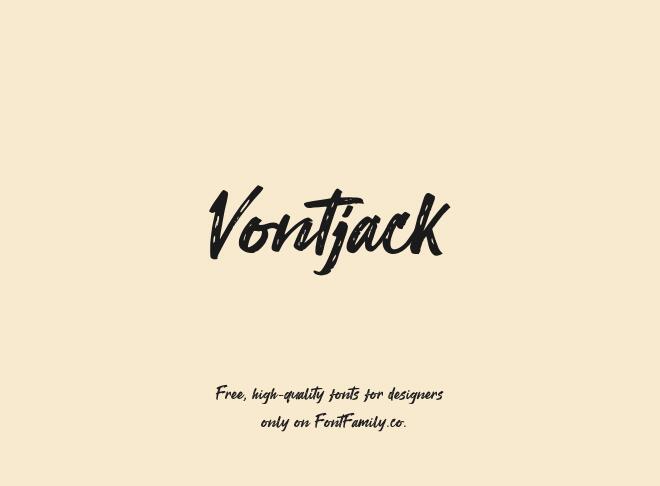
Vontjack Font
The Vontjack Font, a creation of the Vontjack Foundry, is a versatile and unique typeface that stands out in the crowd. With its decorative script style, it brings a distinctive, artistic touch to any design. The font carries an air of creativity and sophistication, making it a perfect choice for branding, logo design, or any project that requires a distinctive and personal touch. Compared to other fonts, Vontjack Font has a unique flair that can add a touch of elegance to your designs. It's particularly suited to projects in the arts, fashion, and lifestyle sectors. Whether you're designing a book cover, a poster, or a website, Vontjack Font is a great choice that will make your design pop and leave a lasting impression.